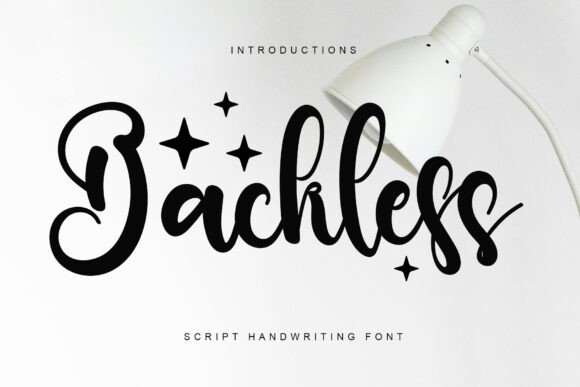
Introducing Backless Font: A Festive and Merry Typeface for the Holiday Season
The holiday season is upon us, and with it comes the need for designs that capture the spirit of joy, cheer, and festivity. If you’re looking for a typeface that embodies the magic of this special time of year, look no further than Backless Font. This delightful font is specifically designed to bring a touch of enchantment to your designs, making it perfect for greeting cards, gift tags, and holiday-themed projects.
What is Backless Font?
Backless Font is a decorative typeface that is sure to add a whimsical flair to your designs. With its unique and festive elements, this font is designed to evoke the nostalgia and cheer of the holiday season. Whether you’re creating a holiday greeting card, a gift tag, or a festive-themed project, Backless Font is the perfect choice.
Key Features of Backless Font
• Decorative Elements: Backless Font features decorative elements that add a touch of festivity to your designs. From intricate swirls to cheerful embellishments, this font is sure to make your designs stand out.
• Whimsical Flair: With its whimsical flair, Backless Font brings a playful and nostalgic ambiance to your words. Perfect for creating designs that are both fun and festive.
• Holiday Spirit: This font is specifically designed to capture the spirit of the holiday season. Whether you’re creating designs for Christmas, Hanukkah, or any other winter holiday, Backless Font is the perfect choice.
Uses for Backless Font
Backless Font is a versatile typeface that can be used for a variety of design projects. Here are some ideas to get you started:
• Greeting Cards: Create festive holiday greeting cards that are sure to delight your friends and family.
• Gift Tags: Add a touch of whimsy to your gift tags with Backless Font. Perfect for presents, gift baskets, and more.
• Holiday-themed Projects: From holiday-themed party invitations to festive social media graphics, Backless Font is the perfect choice for any holiday project.
Benefits of Using Backless Font
There are many benefits to using Backless Font for your holiday designs. Here are just a few:
• Easy to Read: Despite its decorative elements, Backless Font is easy to read and understand. Perfect for creating designs that are both festive and functional.
• Customizable: With its range of decorative elements and whimsical flair, Backless Font is highly customizable. Experiment with different colors, sizes, and styles to create a unique look that’s all your own.
• Nostalgic Ambiance: Backless Font brings a nostalgic ambiance to your designs that’s sure to delight. Perfect for creating holiday designs that feel both classic and modern.
Tips for Using Backless Font
Here are a few tips for getting the most out of Backless Font:
• Experiment with Colors: Backless Font looks great in a range of colors, from traditional holiday colors like red and green to more modern shades like metallic silver and gold.
• Play with Size: Don’t be afraid to experiment with different font sizes to create visual interest and hierarchy in your designs.
• Add Decorations: Take advantage of Backless Font’s decorative elements to add a touch of festivity to your designs.
Backless Font is a festive and merry typeface that’s perfect for the holiday season. With its decorative elements, whimsical flair, and nostalgic ambiance, this font is sure to bring a touch of enchantment to your designs. Whether you’re creating greeting cards, gift tags, or holiday-themed projects, Backless Font is the perfect choice. So why wait? Download Backless Font today and start creating holiday designs that are sure to delight!